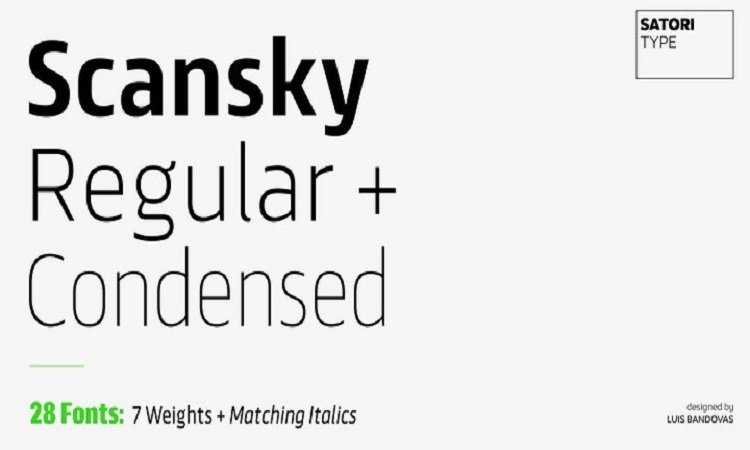
Scansky Sans Serif Font
Introducing  Scansky Font – is a contemporary humanist font family with classicist roots. Hence its name, Agile Sans suits many occasions from branding to publications, web and applications. From formal to casual, bold to refined, this font covers it all.
Scansky Font comes with nine weights with corresponding true-italics. Built-in small capitals and several numeral styles are included as well.